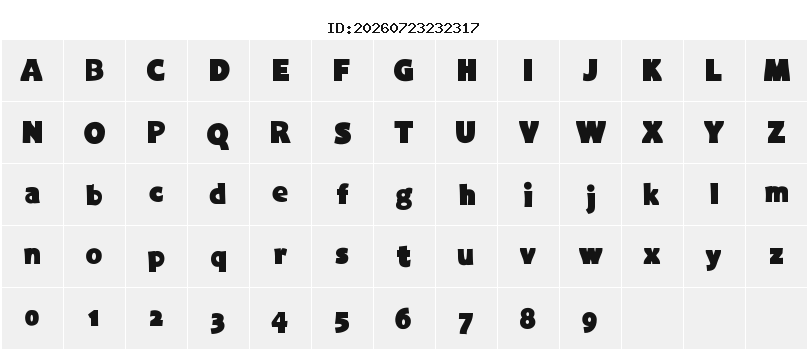
• Font Name: Extra Fat
• Full Font Name: Extra Fat
• Version: Version 1.00 February 9, 2015, initial release
About Extra Fat.ttf
Extra Fat.ttf is a modern, elegant sans-serif font designed for ultimate readability and visual harmony. Perfect for branding, headlines, web design, and print materials.